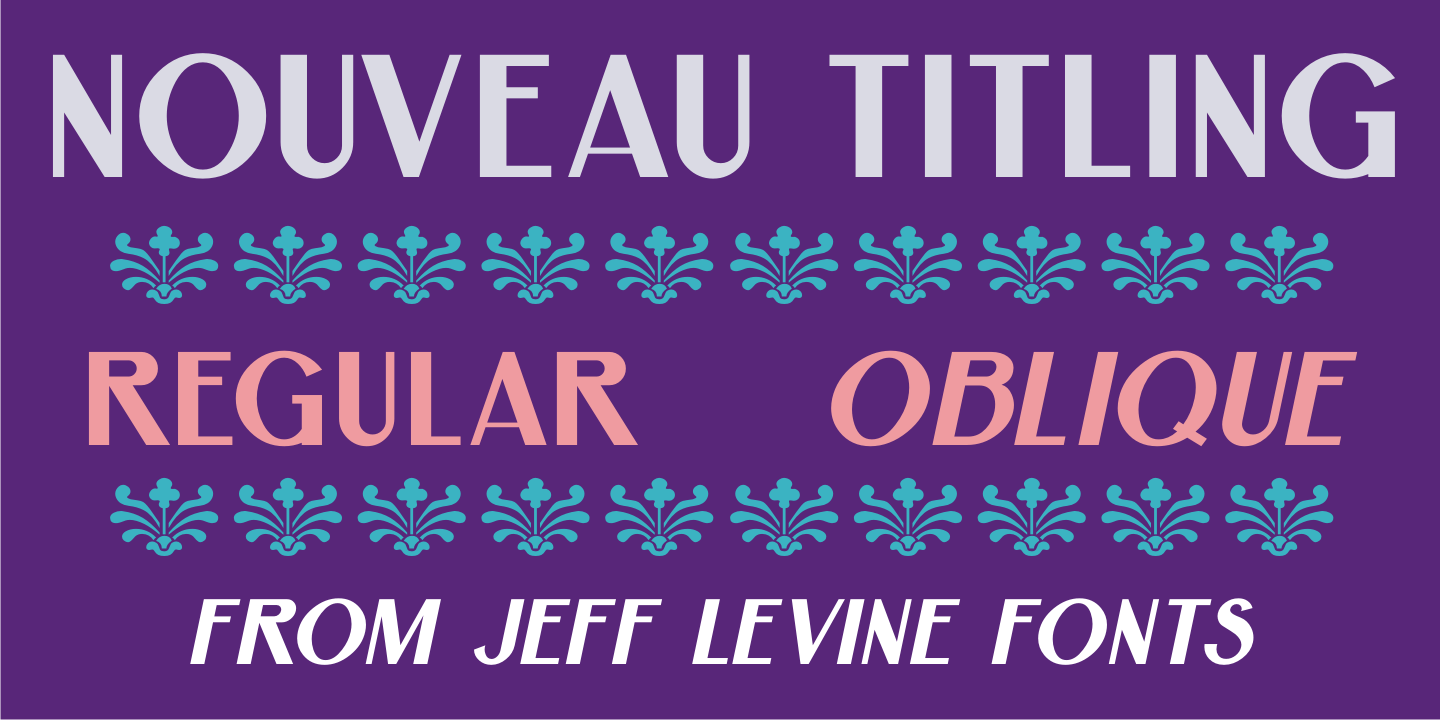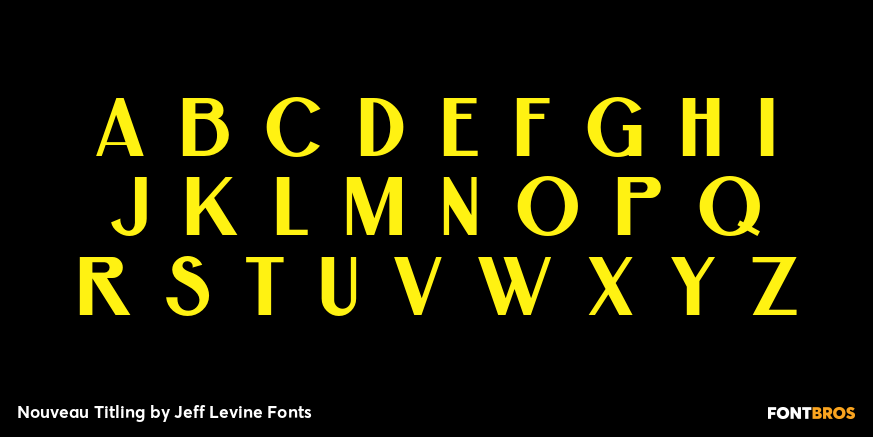
Nouveau Titling
Sheet music for1907's 'Just A Little Fond Affection” had the song title hand lettered in a simple sans serif design with influences from the then-current Art Nouveau movement.
This is now available as Nouveau Titling JNL; available in both regular and oblique versions.